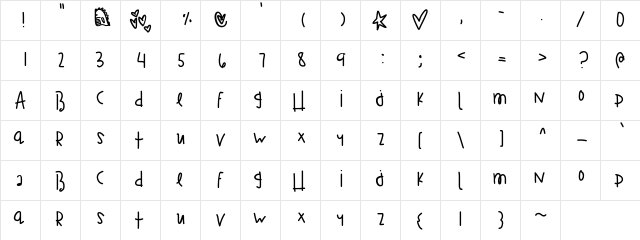
TragicKingdom Medium
Design Context for TragicKingdom Typeface
TragicKingdom is a composed and adaptable typeface that performs quietly and consistently across a wide range of design contexts.